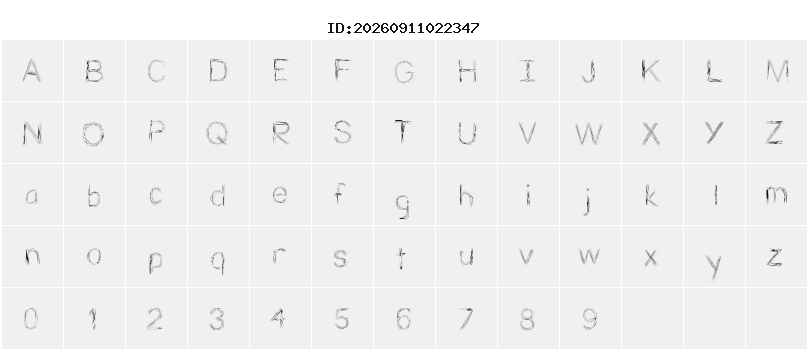
About ViaStik.ttf
ViaStik.ttf is a modern, elegant sans-serif font designed for ultimate readability and visual harmony. Perfect for branding, headlines, web design, and print materials.